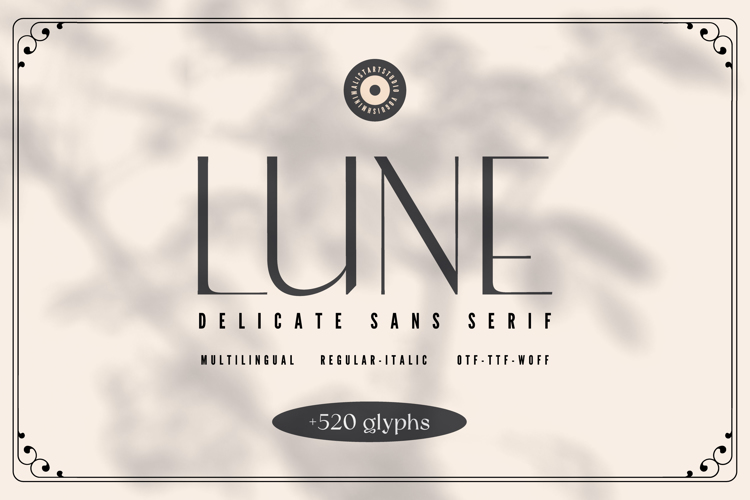
LUNE Font
π¨ Font Name: Lune by Minimalist Art Studio
π¨ Font Description: Lune is a delicate sans serif with multilingual supportβideal for minimalist branding, editorial calm, and poetic packaging.
β Complete Latin set + multilingual diacritics
β Alternates, stylistic sets & ligatures
β Numbers, small caps, and extended punctuation
β Bonus italics and family styles